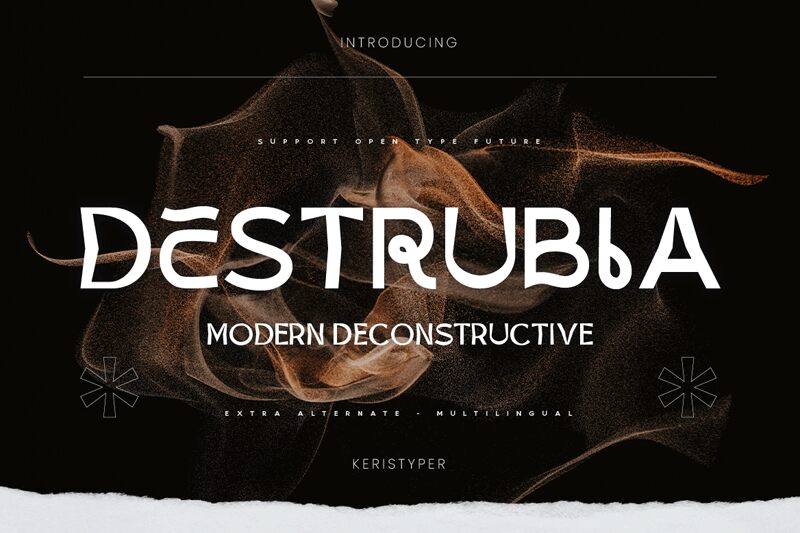
Destrubia font, designed by Tezar Tantular, is a free sans-serif font that captures a futuristic and edgy aesthetic. This innovative typeface stands out with its dynamic and unconventional design, making it a unique choice for projects that demand a contemporary touch. Inspired by architectural and avant-garde elements, Destrubia offers an abstract yet legible typeface suitable for various design needs.
The font is perfect for use in branding, logos, posters, album covers, advertisements, and packaging designs. It also excels in digital projects like websites, apps, and social media graphics where a modern and experimental vibe is desired.